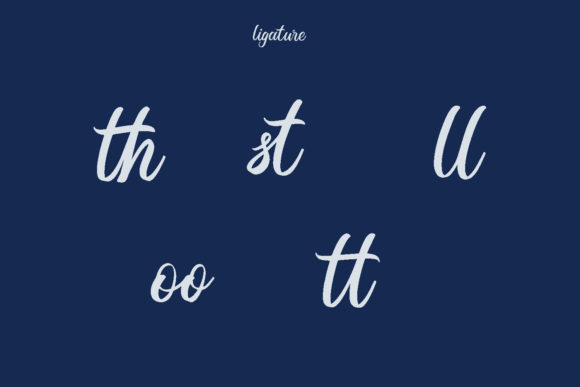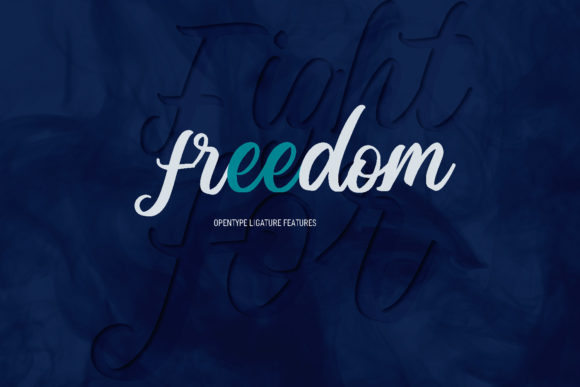
About Lucifasta Font
Lucifasta is a fancy and cursive script font. It features high contrast strokes, fun characters, ligatures and alternates. It has a modern yet whimsical style and it will undoubtedly immerse your designs into a magical world.